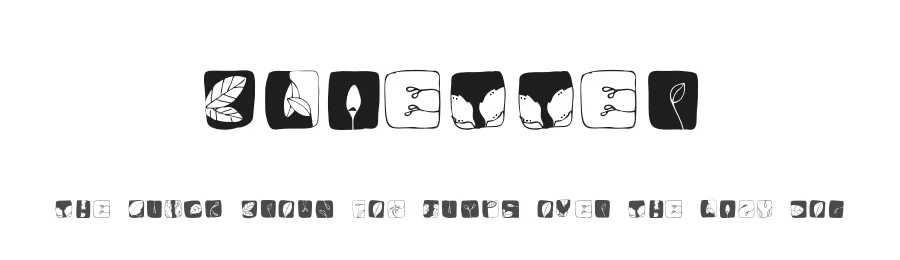
Marmelade Guys is a decorative font designed by Pizzadude. It includes 99 glyphs, a regular weight, TTF (TrueType) format, and 106 languages. Marmelade Guys is free to download; check the license details on this page before commercial use. Decorative fonts like Marmelade Guys work best for logos, posters, packaging, and standout headlines.
Marmelade Guys Font is a decorative font that shines as a display or heading face. Pair it with a clean sans-serif or serif font for body text β the contrast creates a clear hierarchy while the two styles stay balanced and easy to read.
Marmelade Guys Font is a decorative typeface by Pizzadude, ideal for logos, invitations, branding, and creative projects.